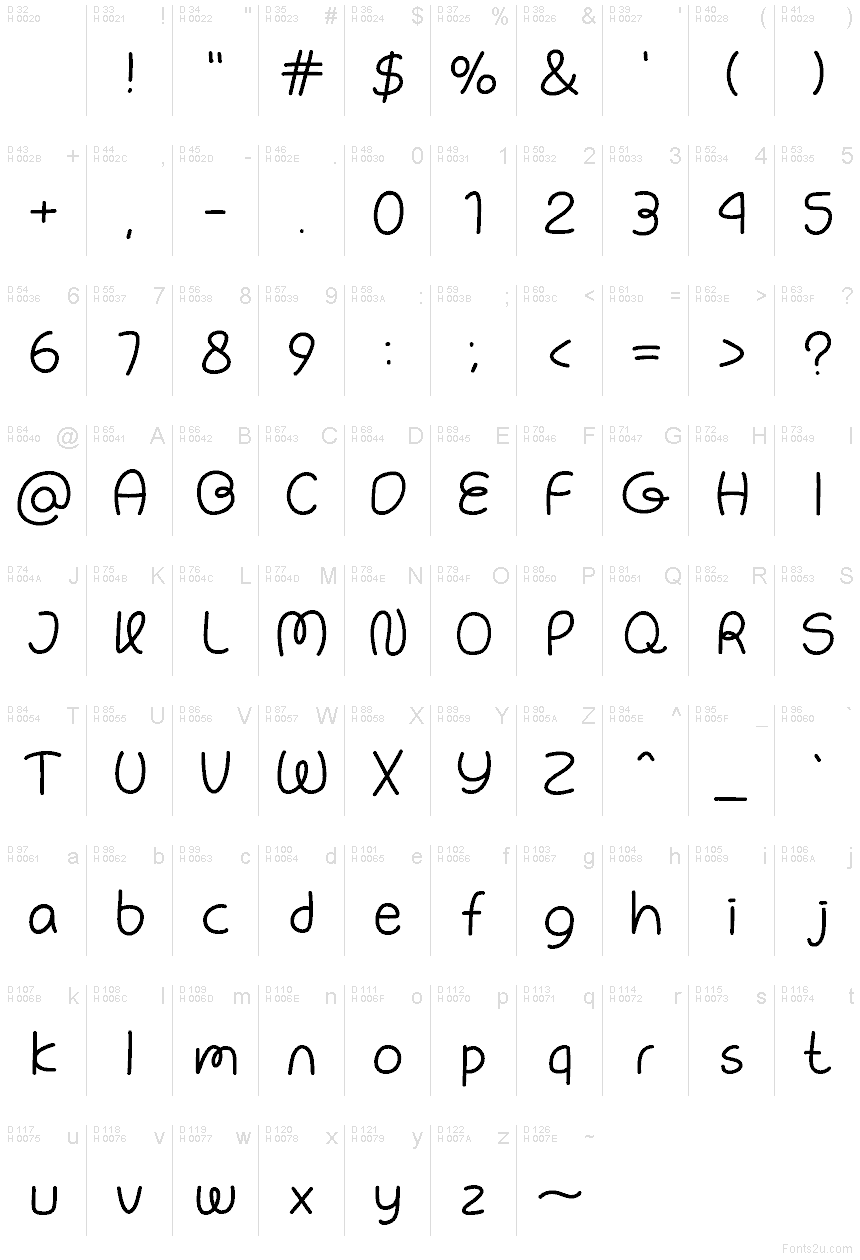
Bakery Krimer
Bakery Krimer font by Origin Type is a free handwritten typeface. Its rounded monoline strokes feel inky and soft, with lively loops and a gentle bounce that reads friendly rather than messy. Letters sit comfortably close, creating a cozy rhythm that suggests warm pastries and hand‑tied packages without losing clarity at medium sizes.
Using Bakery Krimer, your work shines on bakery logos, café menus, packaging labels, recipe cards, stickers, and Instagram posts. This free font brings a homemade charm that stays legible on chalkboard signs and small tags, thanks to its open shapes and steady flow. Try setting headlines slightly larger than usual and pair with a clean, unobtrusive sans for body copy to keep the sweetness in check.